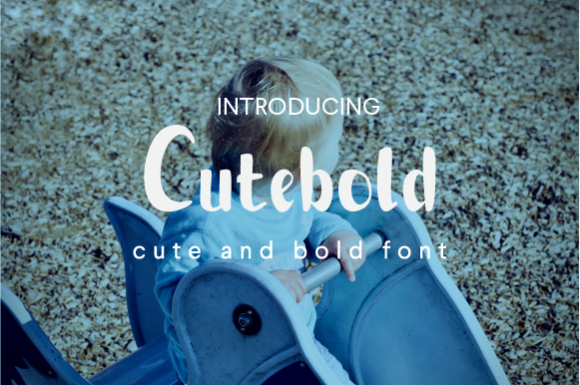
HomeScript FontsCutebold Font Script Fonts Cutebold Font FacebookXPinterestWhatsApp About Cutebold Font The Cutebold is a modern handwritten font. It has bold touches and beautiful curves. DOWNLOAD NOW People also explored Hanymoon Font The Best Font Sea Turtle Font Valentine Font Parishan Font Natural Fence Font Burial Font Wreath Flowers Monogram Font Classy Beautiful Duo Font 310 0 TagsCutebold Font Previous articleJiguliny FontNext articleCrystal Font LEAVE A REPLY Cancel reply Comment: Please enter your comment! Name:* Please enter your name here Email:* You have entered an incorrect email address! Please enter your email address here Website: Save my name, email, and website in this browser for the next time I comment. Personal Use Free Open Store Personal Use Free Read more about this font Pan Pizza Personal Use Free Read more about this font The Kingdom Personal Use Free Read more about this font Hillgates Personal Use Free Read more about this font BLOG Free vs Paid Fonts: Why Investing in Premium Fonts Is Worth It Free vs Paid Fonts: Why Premium Fonts Are Worth It in 2025 The debate of free vs paid fonts continues in the design world. While... Modern Sans-Serif Fonts That Brands Love in 2025 Using Fonts in Digital Marketing: Tips to Strengthen Your Brand Identity The 10 Best Handwriting Fonts to Add Personality to Your Designs